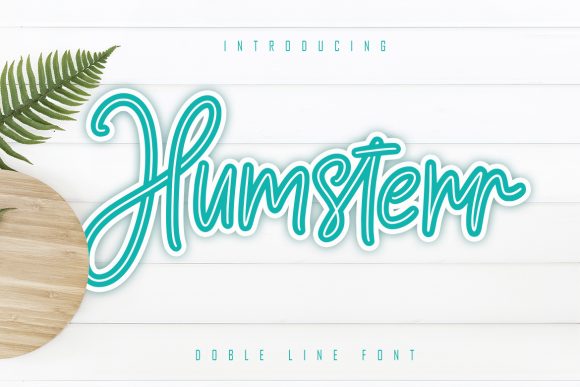
**Introducing Humsterr Font: The Epitome of Enchanting Handwritten Script**
Unleash the captivating allure of Humsterr Font, a mesmerizing script font designed to ignite your creative spark and elevate your projects to new heights. Humsterr's graceful curves and playful strokes exude a charm that will captivate your audience, leaving an indelible mark on every design you create.
**Step into a Realm of Creative Freedom**
With Humsterr Font, the possibilities are limitless. Whether you're a seasoned designer or just starting your creative journey, this font is your key to unlocking a world of captivating designs. Its versatility knows no bounds, effortlessly adapting to a myriad of projects, from whimsical invitations to captivating social media posts.
**Capture the Eyes of Your Audience**
In a world of ordinary fonts, Humsterr Font sets itself apart as a beacon of originality. It's the perfect choice for those who dare to be bold, who strive to make a statement with their designs. With Humsterr, your creations will stand out from the crowd, leaving a lasting impression on your audience.
**A Symphony of Strokes, A Dance of Elegance**
Humsterr Font is a masterpiece of penmanship, each letter meticulously crafted to evoke a sense of effortless flow and effortless grace. Its strokes intertwine harmoniously, creating a visual symphony that will mesmerize your eyes and ignite your imagination.
**Showcase Your Designs with Confidence**
Whether you're designing a breathtaking logo, an eye-catching poster, or an unforgettable presentation, Humsterr Font will elevate your creations to the next level. Its sophistication and charm will captivate your audience, leaving them spellbound by the beauty of your designs.